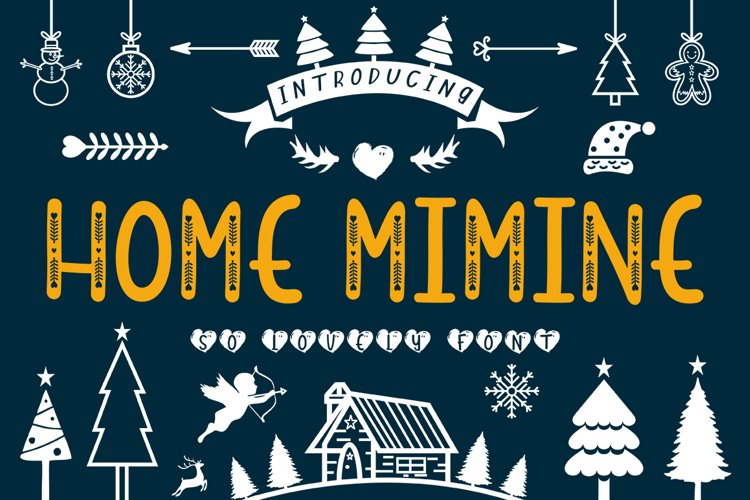
Home Mimine is a handwritten mixed-case serif font that is perfect for so many design projects! It is smooth for optimal cutting with Cricut & Silhouette machines.